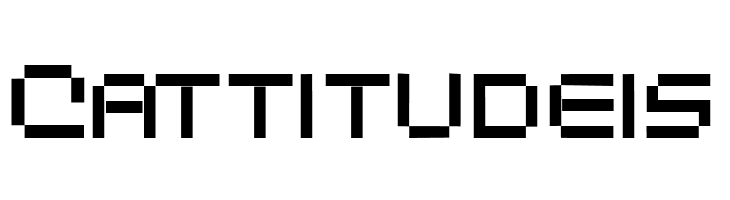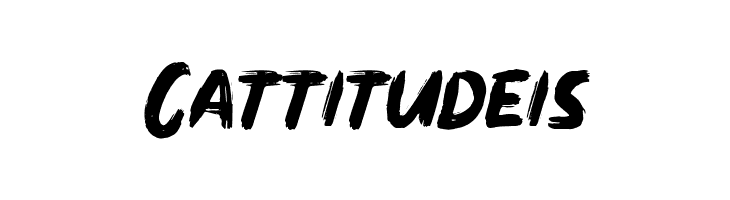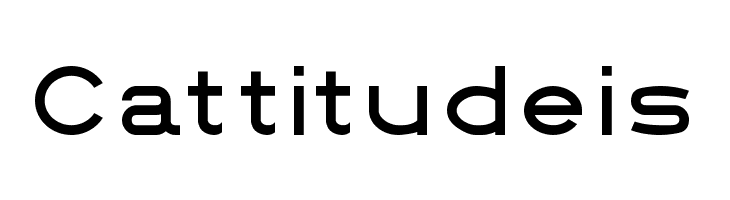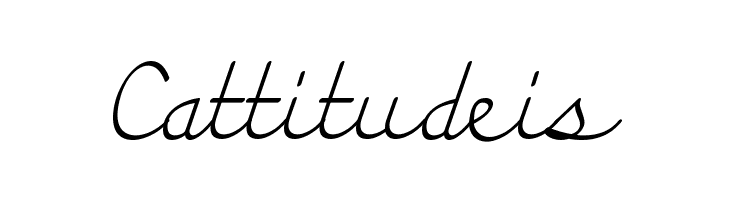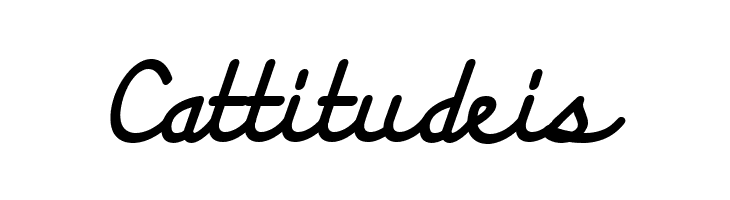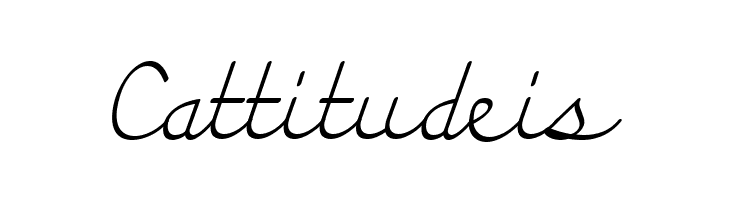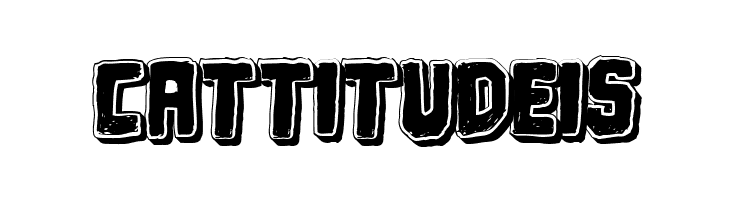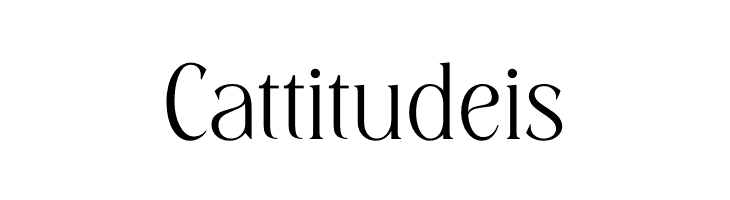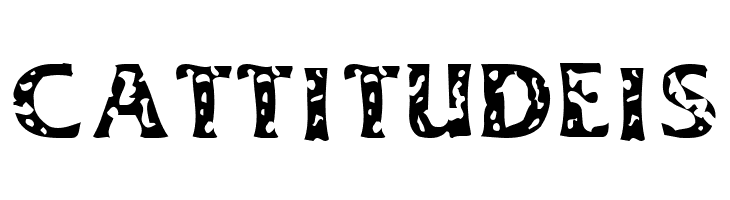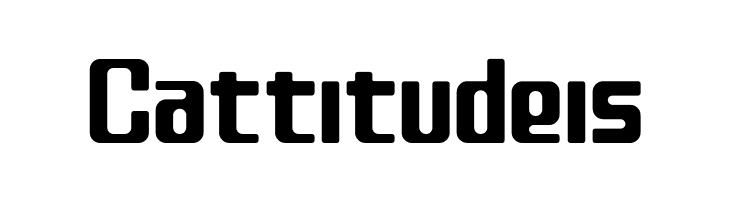
A bold, geometric font with sharp, angular design elements.
A bold, decorative font with a distressed, playful texture.
A pixelated, retro-style font with a blocky, digital appearance.
A geometric, modern typeface with uniform strokes and a technical appearance.
A geometric sans-serif font with uniform strokes and high legibility.
A modern, italicized font with outlined letterforms and a sleek, geometric design.
A bold, left-leaning italic font with a modern and dynamic style.
A modern, outlined italic font with a leftward slant and geometric structure.
A refined serif font with high contrast and elegant strokes.
A bold, textured font with a hand-drawn, brush-like appearance.
A dynamic brush-style font with fluid, expressive strokes and a modern calligraphic flair.
A bold, outlined geometric font with consistent stroke width and modern style.
A bold, geometric font with rounded edges and a modern style.
An elegant, flowing script font with connected characters and medium contrast.
A graceful script font with fluid, interconnected strokes and a cursive style.
A bold, cursive font with smooth, flowing lines and connected letters.
A bold, cursive font with a playful and energetic style.
A bold, cursive script with interconnected letters and a lively, handwritten style.
An elegant, flowing script font with smooth, connected strokes.